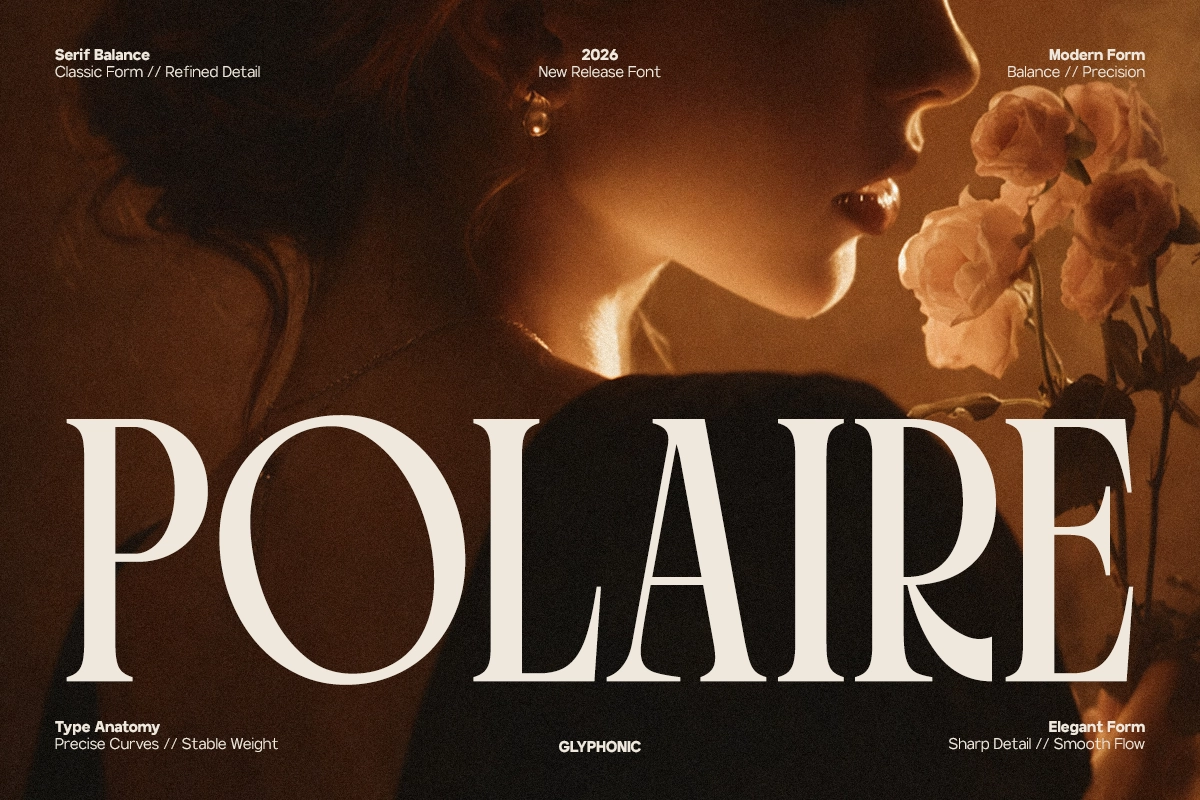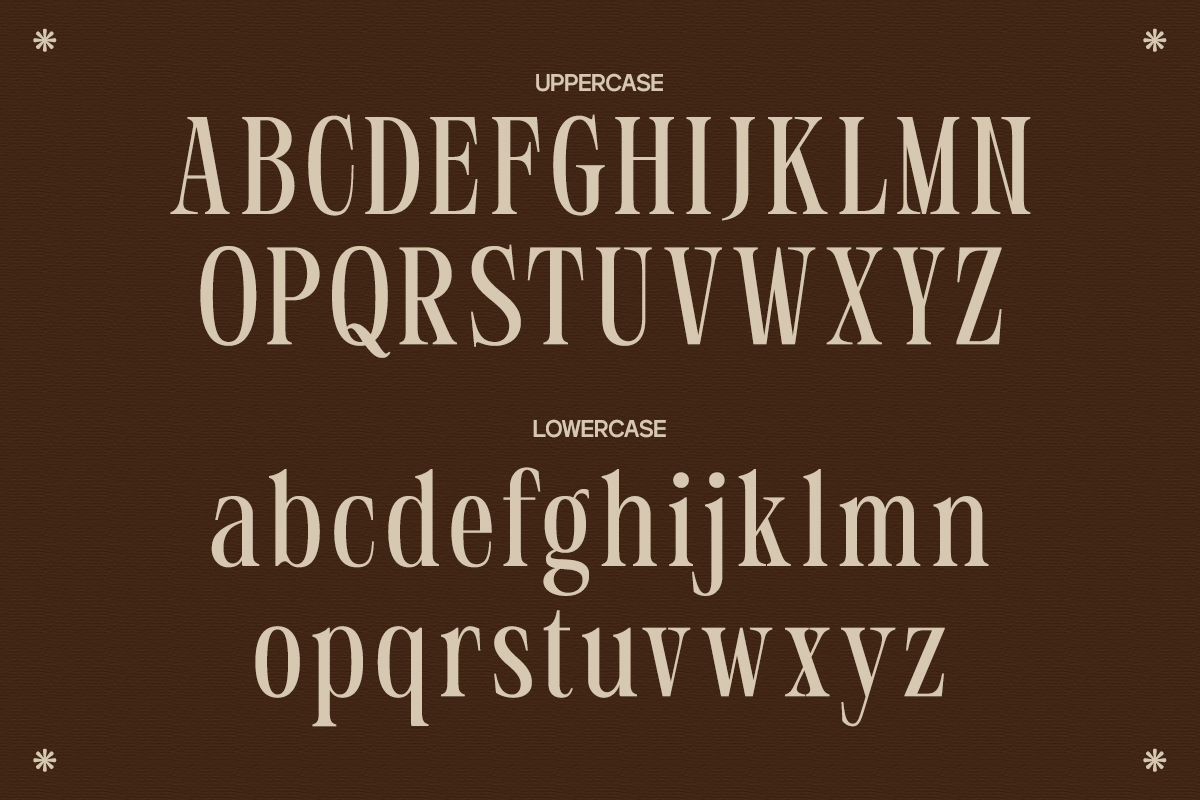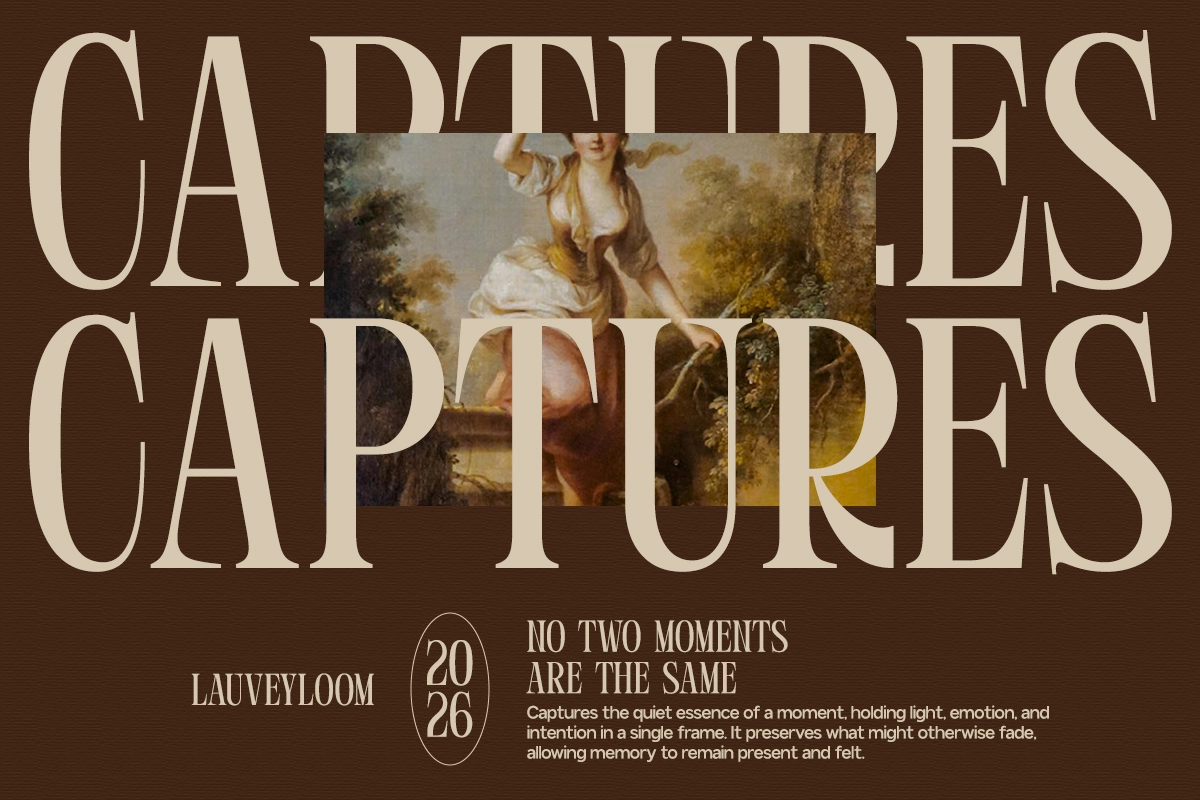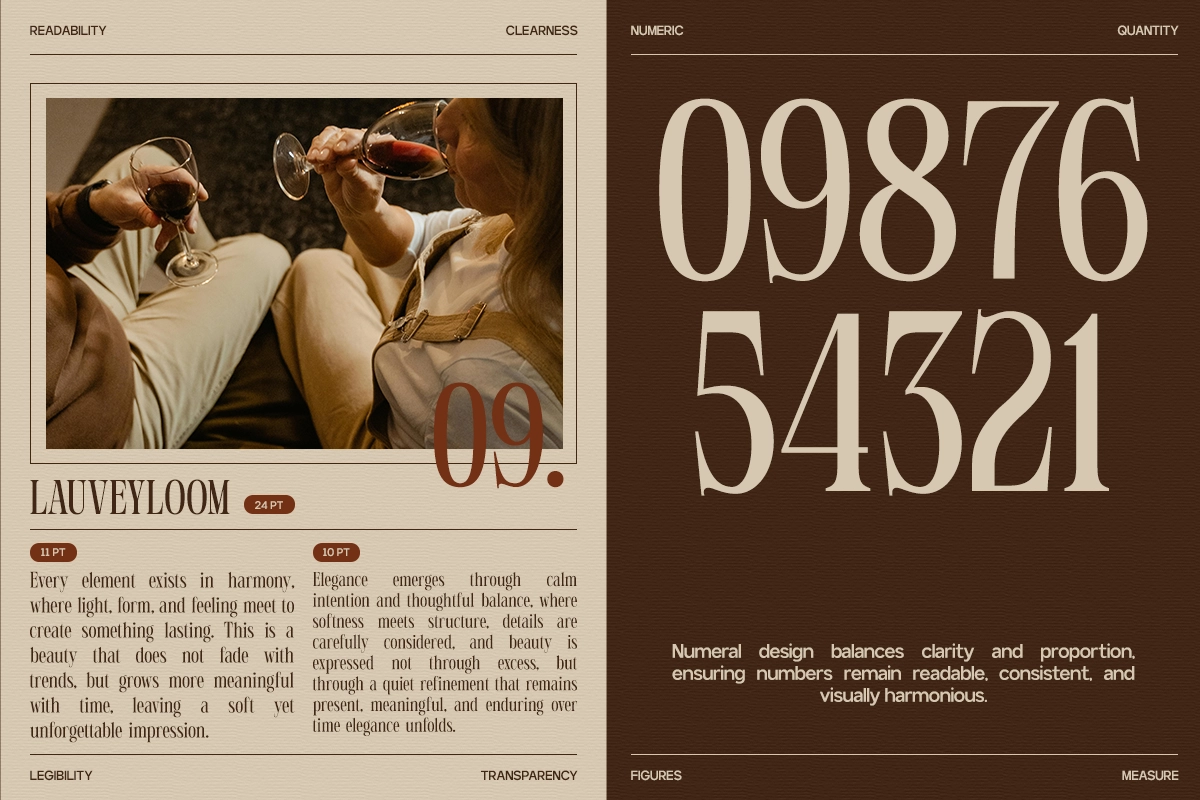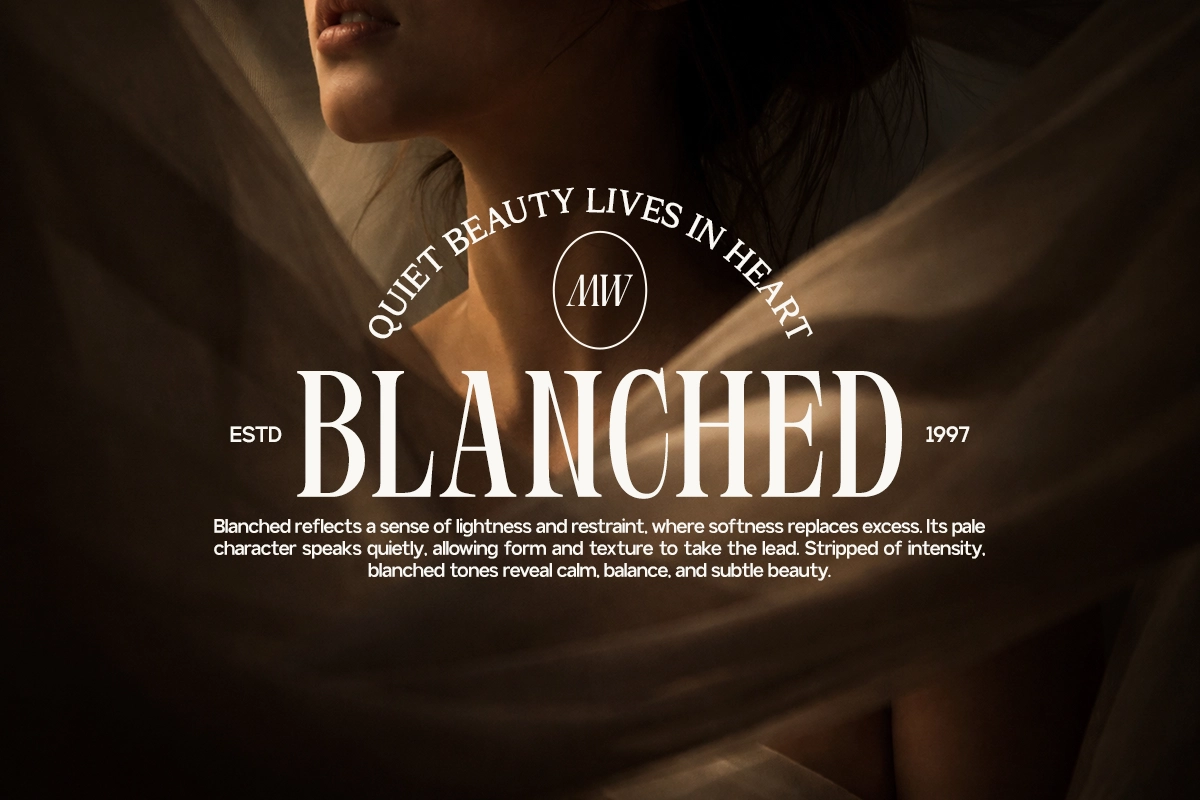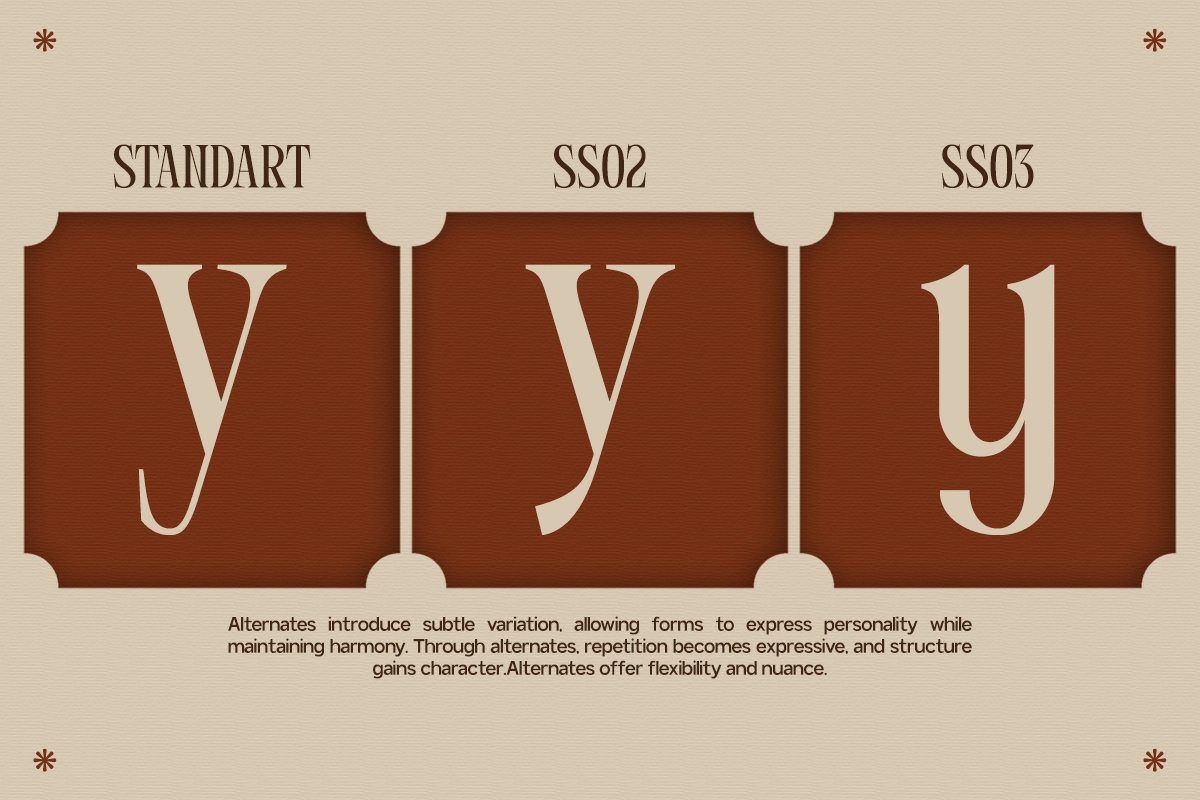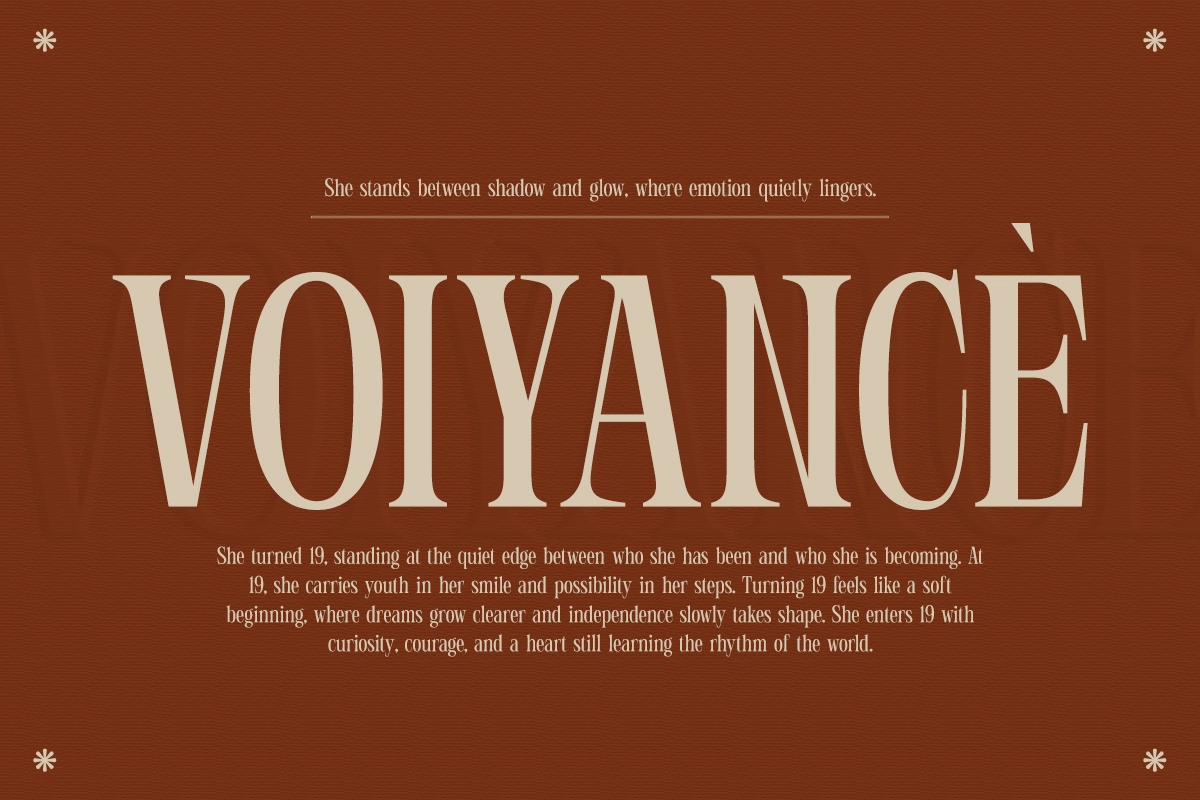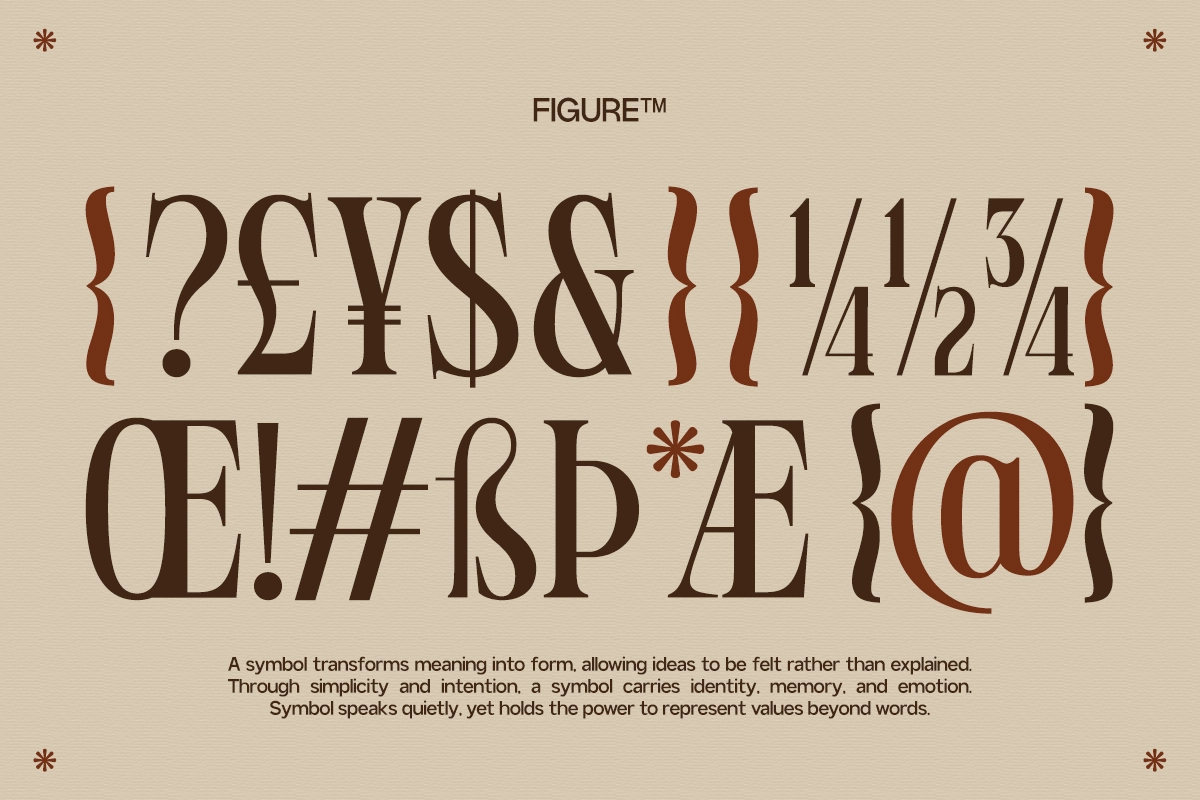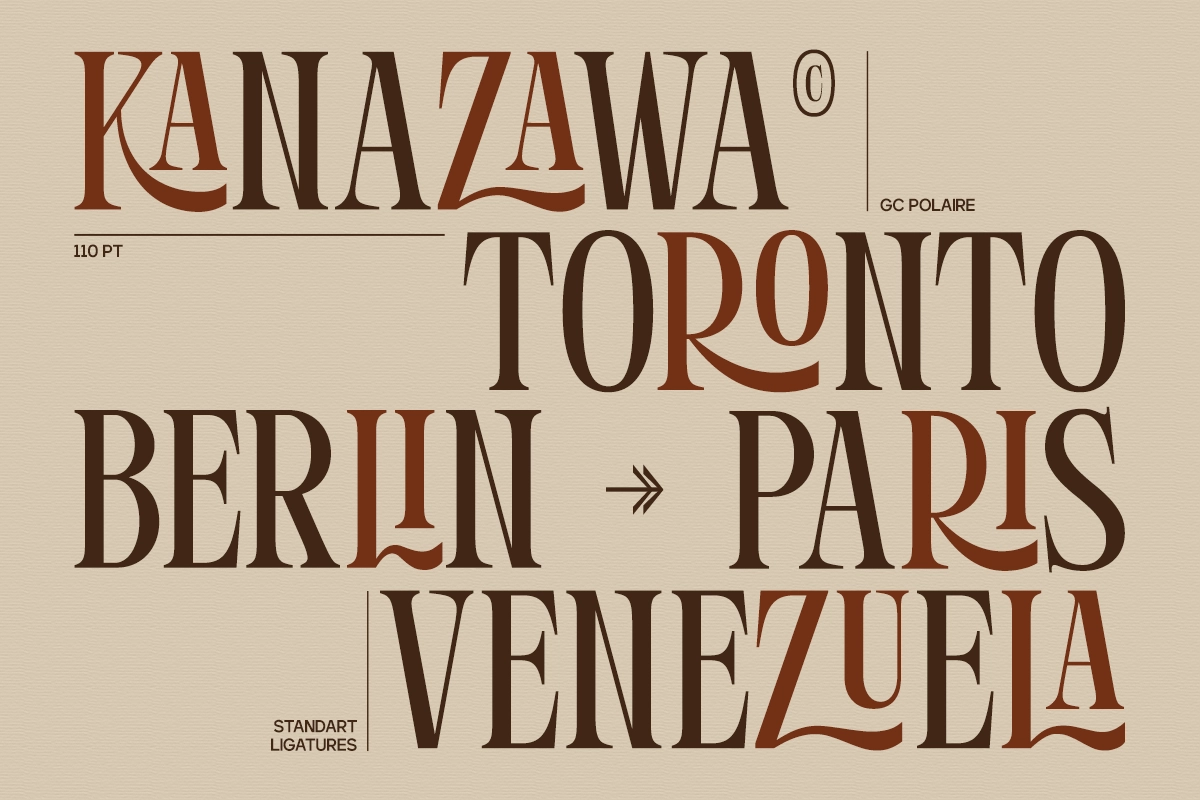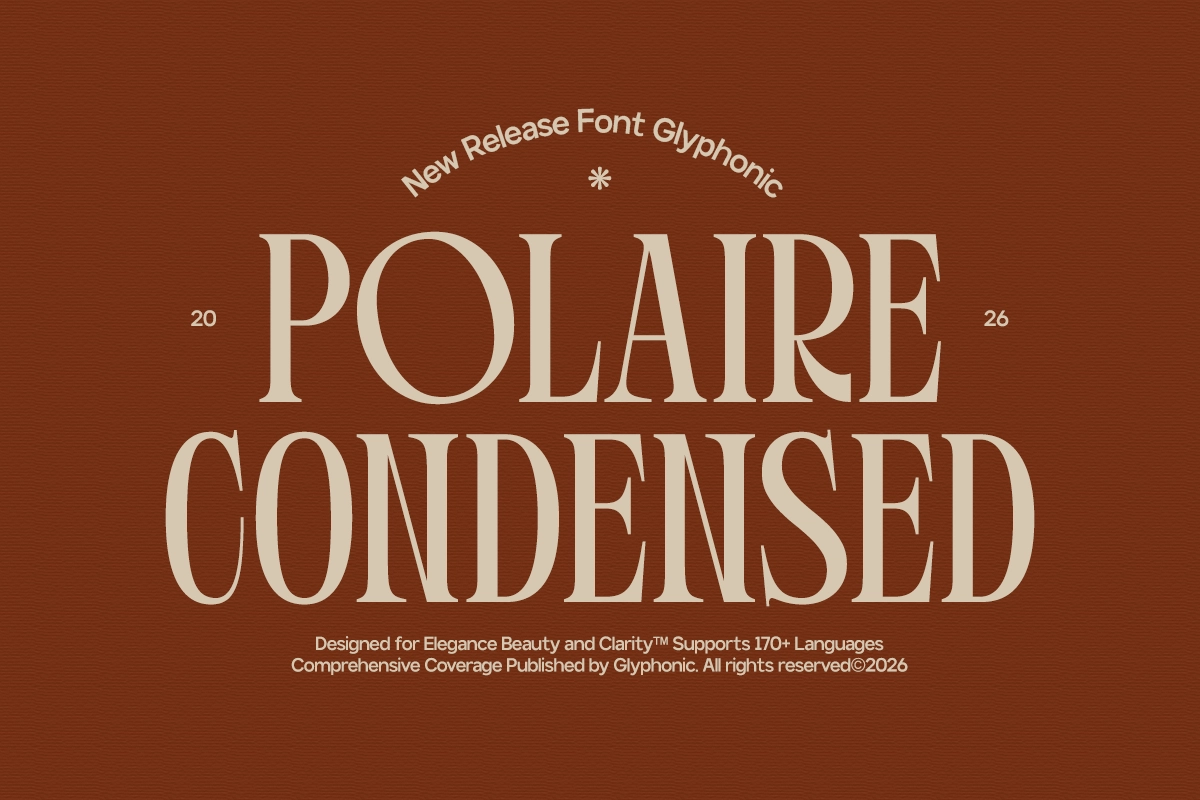
GC Polaire - Serif Display Condensed Font
GC Polaire – Serif Display Condensed Font is a refined contemporary serif display typeface designed to deliver elegance, clarity, and strong visual presence. Defined by its condensed proportions and sharp serif details, Polaire creates sophisticated typography that feels both modern and timeless.
With its precise structure and confident vertical rhythm, GC Polaire is perfect for headlines, branding, editorial layouts, luxury packaging, fashion campaigns, posters, and modern visual identities. The narrow form allows powerful typographic statements while maintaining balance and readability, making it ideal for high-impact compositions.
Balancing classic serif elegance with modern display energy, GC Polaire brings a distinctive character and polished authority to any design project.
• Numbers & Punctuation
• Condensed Display Proportions
• Sharp & Refined Serif Construction